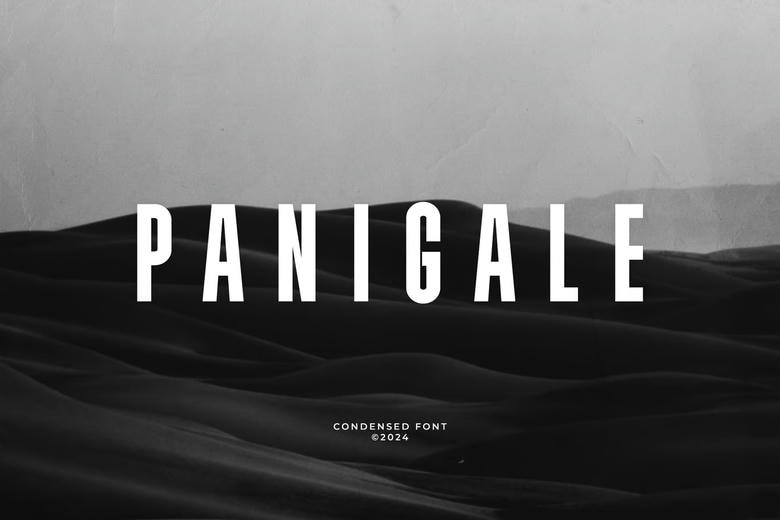
Panigale Font
Panigale Font is a condensed sans serif font that means that instead of having a large number of characters spiced evenly on the page, this font tends to reduce the amount of space between the letters and make the letters geometrically bolder than other sans serif fonts.
About the font, it is suitable for almost any design project due to the simplicity of its appearance, yet sophisticated look. The material is very solid and has an authoritative tone, which makes it suitable for headlines and logos and any other element that needs to shout.
Panigale Sans Serif Font